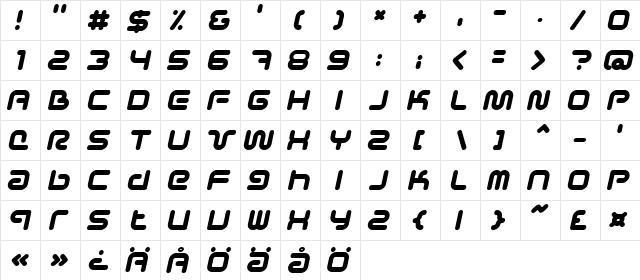
Sci Fied BoldItalic Font Preview
Design Context for Sci Fied Typeface
Sci Fied channels digital-age aesthetics through its sharp, structured letterforms — ideal for brands that want to signal innovation. The slanted form adds forward momentum and visual energy. The heavy weight commands attention and anchors typographic hierarchies.